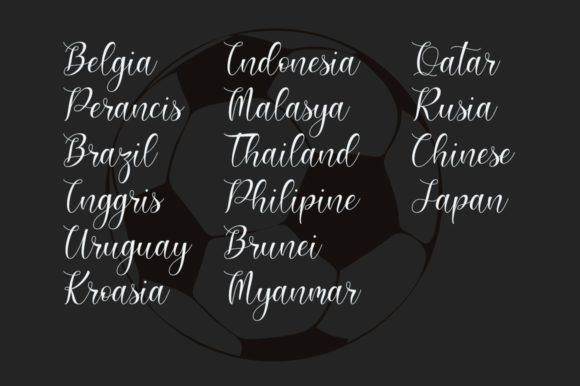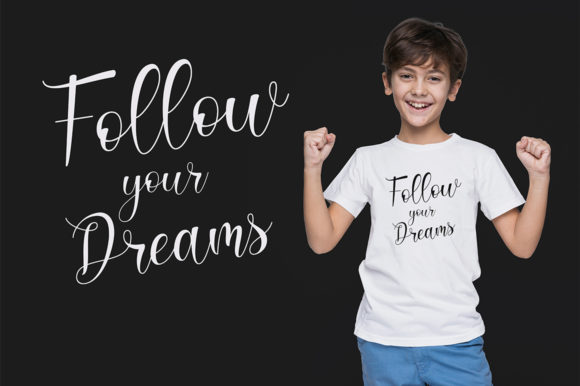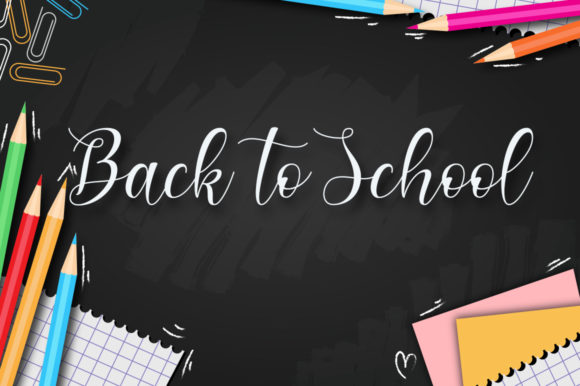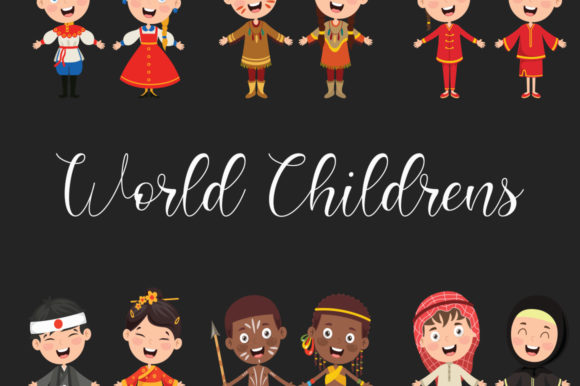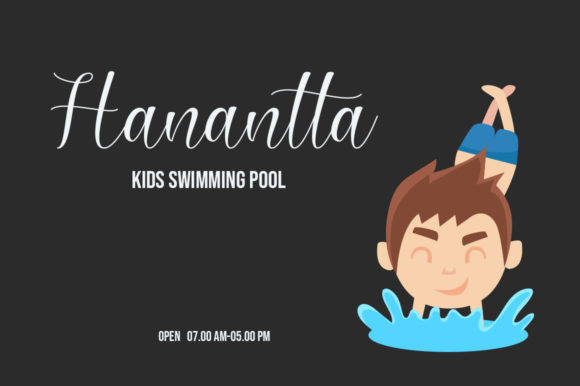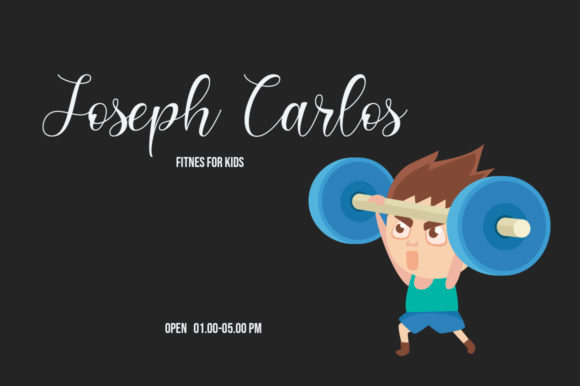
Gilbertho Font: Elevate Your Designs with Elegance and Sophistication
In the world of typography, a font can make all the difference in the aesthetic and feel of a design. For those seeking a touch of elegance and sophistication, the Gilbertho font is an exquisite choice. This flowing and exquisite handwritten font is designed to add a delicate touch to various design projects, making it a perfect fit for crafters and designers alike.
Characteristics of Gilbertho Font
Gilbertho boasts several characteristics that set it apart from other fonts. Its key features include:
- Varying Baseline: The font’s varying baseline gives it a dynamic and organic feel, making it perfect for designs that require a personal touch.
- Smooth Lines: The smooth lines in Gilbertho contribute to its elegance, ensuring that your designs look refined and sophisticated.
- Gorgeous Glyphs: With a wide range of glyphs, designers have the flexibility to create unique and visually appealing text arrangements.
- Stunning Alternates: The availability of stunning alternates allows for further customization, enabling designers to add their personal flair to projects.
Ideal Uses for Gilbertho Font
Gilbertho’s versatile nature makes it suitable for a variety of design projects. Some of the ideal uses for this beautiful font include:
- Wedding Invitations: Add a touch of romance and sophistication to wedding invitations, making the occasion even more special.
- Thank You Cards: Express gratitude in style with beautifully designed thank you cards that leave a lasting impression.
- Quotes: Make quotes stand out with Gilbertho’s elegant and flowing script, perfect for sharing on social media or incorporating into blog posts.
- Greeting Cards: Whether it’s a birthday, anniversary, or holiday, Gilbertho font can elevate your greeting cards to a new level of elegance.
Why Choose Gilbertho Font?
For designers and crafters looking to infuse their projects with a sense of luxury and delicacy, Gilbertho font is an excellent choice. Here are a few reasons why:
- Unique and Eye-Catching: Gilbertho’s distinctive style ensures that your designs stand out from the crowd, capturing the attention of your audience.
- Easy to Read: Despite its elegant and flowing nature, Gilbertho remains highly legible, making it suitable for both headings and body text.
- Versatile: The font’s versatility means it can be used across various design projects, from digital content to print materials.
- Timeless Appeal: Gilbertho’s classic and sophisticated look ensures that your designs remain timeless, avoiding the fleeting nature of trendier fonts.
Tips for Using Gilbertho Font Effectively
To maximize the impact of Gilbertho font in your designs, consider the following tips:
- Pair with Complementary Fonts: When combining Gilbertho with other fonts, choose ones that complement its elegance, such as simple sans-serifs or classic serifs.
- Adjust Line Spacing: To maintain readability and ensure a smooth flow, adjust the line spacing according to the project’s requirements.
- Experiment with Alternates: Take advantage of Gilbertho’s stunning alternates to add uniqueness to your text and make it more visually appealing.
- Consider the Color Scheme: Choose a color scheme that complements the elegance of Gilbertho. Soft pastels, muted tones, or classic black and white can work beautifully.
| Author | Fadlilah Studio |
Gilbertho font offers designers and crafters a beautiful and elegant solution for adding a delicate touch to their projects. With its flowing script, varying baseline, smooth lines, gorgeous glyphs, and stunning alternates, Gilbertho is perfect for a wide range of design applications. Whether you’re creating wedding invitations, quotes, greeting cards, or any other project that requires a touch of sophistication, Gilbertho is sure to exceed your expectations. Embrace the elegance and versatility of Gilbertho font to elevate your designs and leave a lasting impression on your audience.